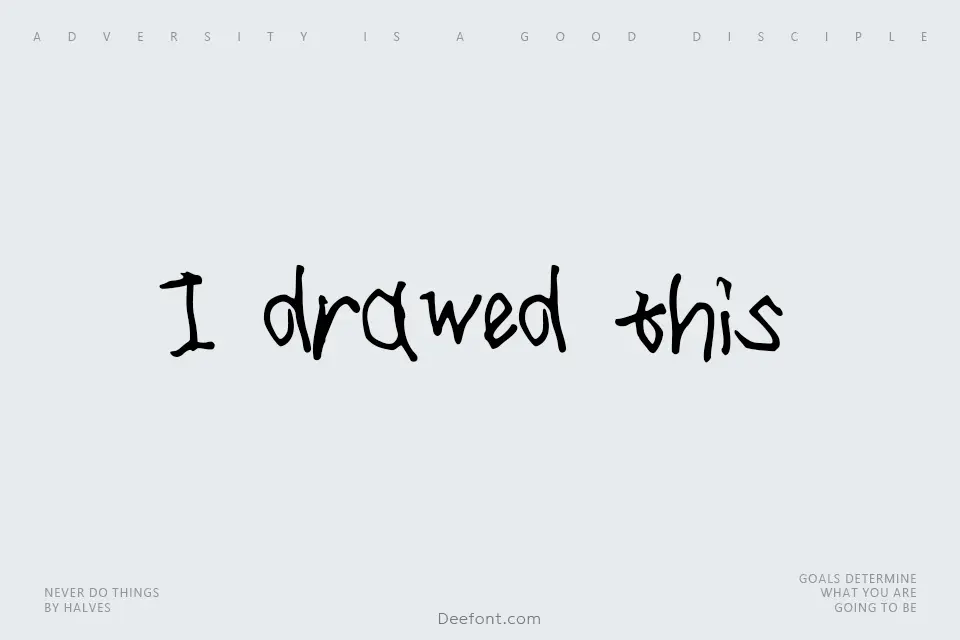
I drawed this Font
I drawed this is a quirky handwritten font with loose, childlike strokes and playful irregular baselines, perfect for fun titles and doodle-style layouts. Use it for kids posters, classroom printables, casual logos, journaling overlays, social media posts, party invitations and light-hearted branding.